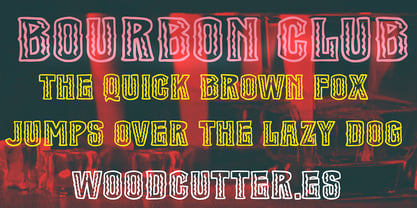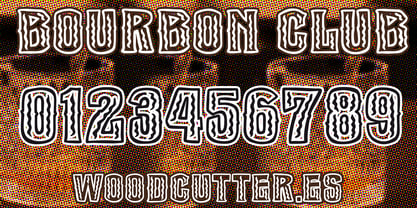
Bourbon Club
The Bourbon Club Font Family was designed by Jordi Manero and published by Woodcutter. Bourbon Club contains 4 styles and family package options. More about this family
Bourbon Club is an all-caps typeface with accents that captures the nostalgic charm of classic nightclubs, vintage liquor labels, and the elegance of retro graphic design. With a decorative style, strong visual presence, and refined curves, this font is crafted to shine in posters, packaging, logos, or any layout seeking to convey sophistication and vintage character. Its design blends art deco influences with touches of mid-century American typography.
The Bourbon Club font family includes four distinct versions, each offering unique stylistic flexibility:
Bourbon Club, the main version, features decorated letters with subtle detailing and a classic personality, perfect for stylish headlines or standout titles.
Bourbon Club Black is bolder and heavier, enhancing visual impact and adding drama to any composition.
Bourbon Club Solid, a clean solid version without decorative elements, is great for straightforward applications or crisp typographic combinations.
Bourbon Club Outline delivers a sophisticated outline design that brings visual lightness and elegant contrast.
These four variations allow for dynamic combinations, layering effects, and bold contrasts, adapting effortlessly to a wide range of creative projects while maintaining their distinctive retro identity. Bourbon Club is a versatile and evocative typeface, ideal for designers looking to capture attention with a carefully styled, powerful, and timeless aesthetic.
Designers: Jordi Manero
Foundry: Woodcutter